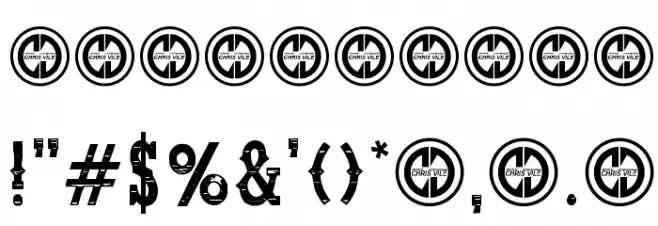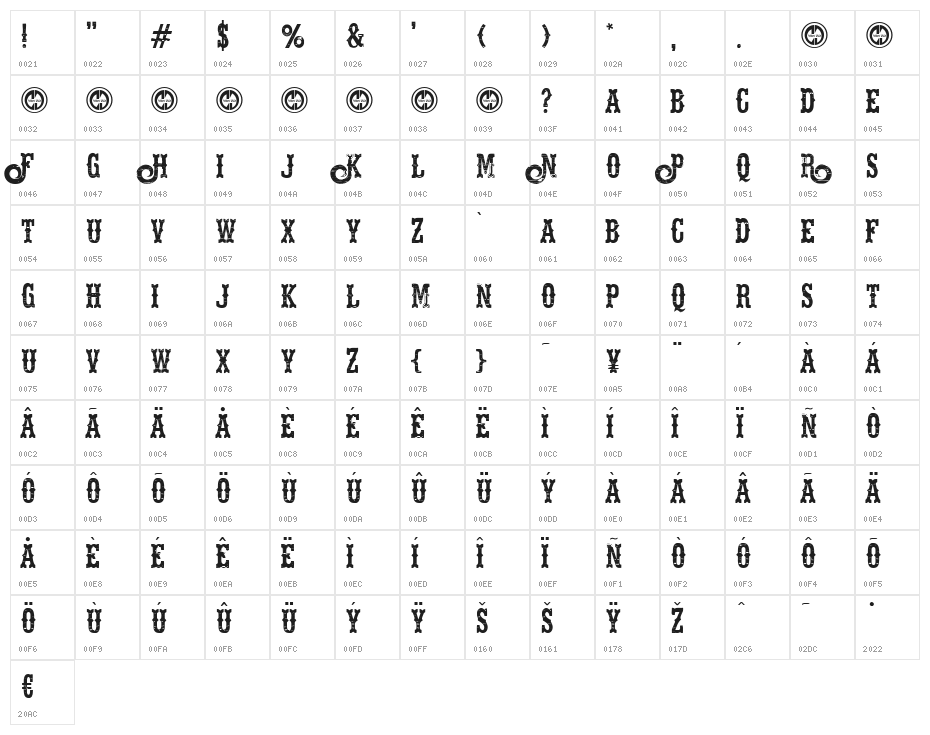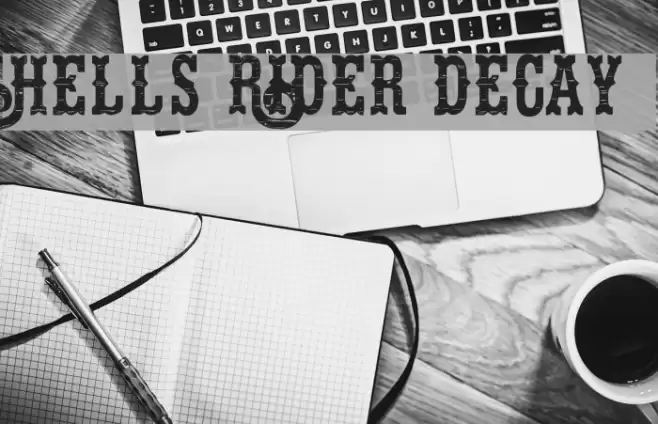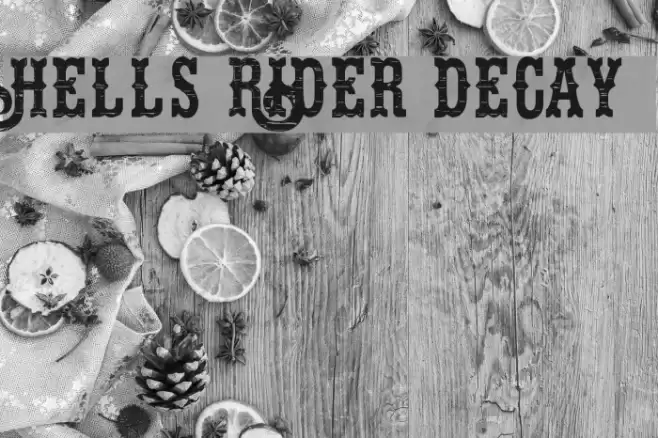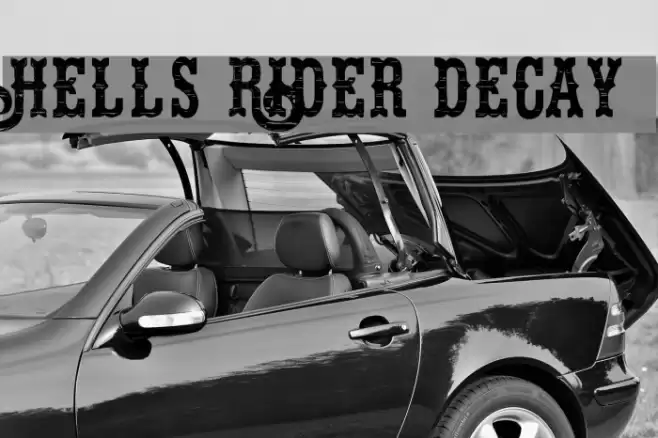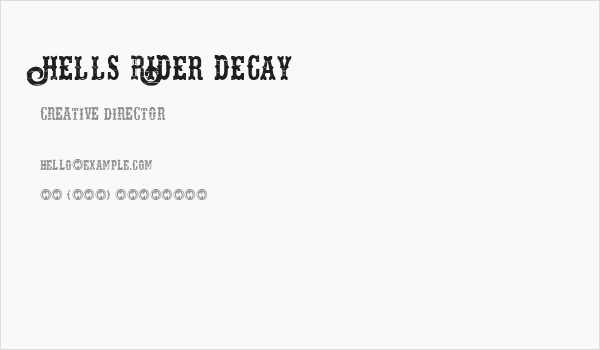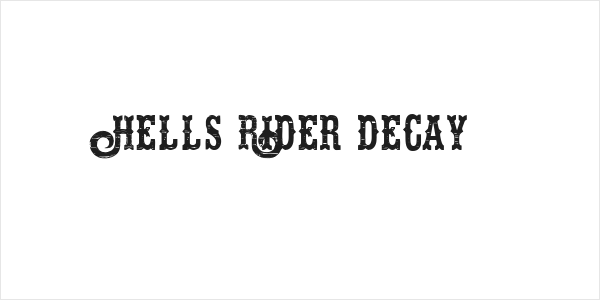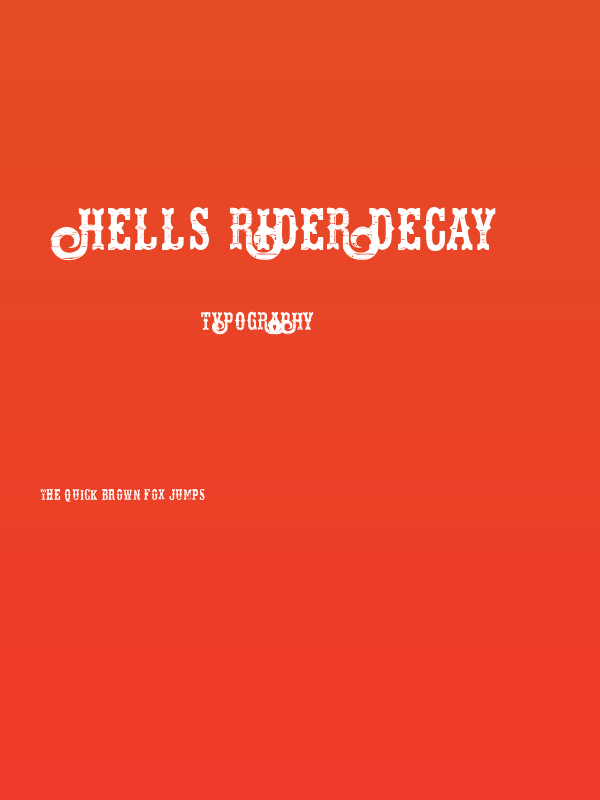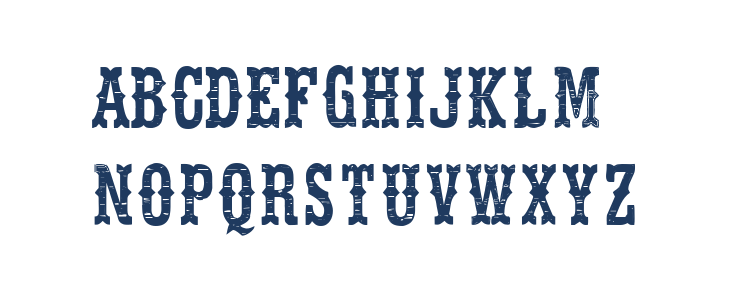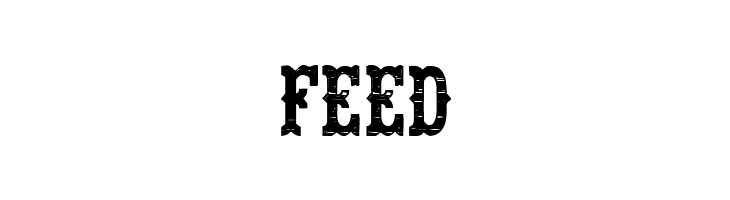
Hells Rider Decay Font
Hells Rider Decay Description
This font features a bold and rugged design with a distressed, decayed appearance. The characters are heavily stylized with rough edges and a textured look, giving them a vintage, worn-out feel. The uppercase letters are prominent and commanding, while the lowercase letters maintain the same distressed style. The numbers and special characters follow the same theme, ensuring consistency throughout. This font is ideal for projects that require a gritty, rebellious aesthetic, such as posters, album covers, or branding for edgy products.
| Proposed Projects | Ideal for posters, album covers, branding for edgy products, and any project requiring a gritty aesthetic. |